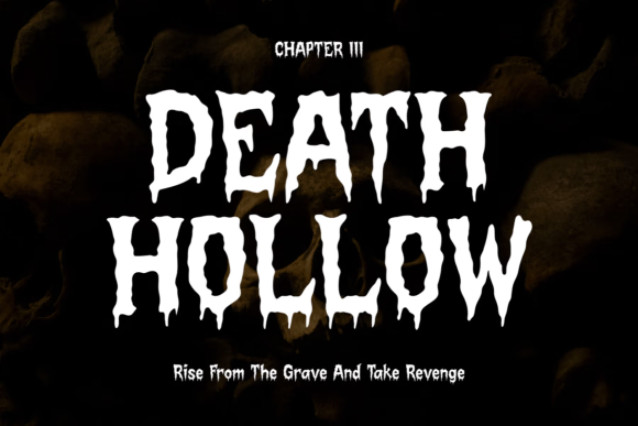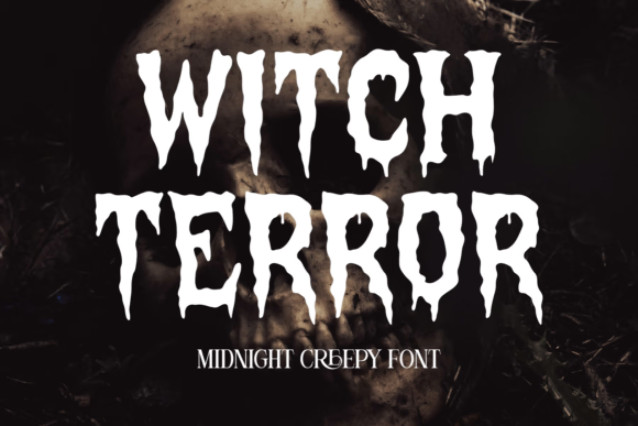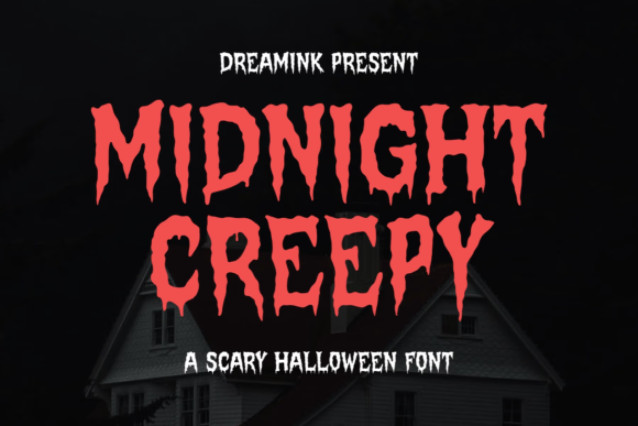
Midnight Creepy Font
Midnight Creepy is a terrifyingly bold Halloween font that drips with eerie style. With jagged, melting edges and a blood-like flow, each letter feels as if it has been pulled straight out of a midnight horror scene. Perfect for adding a chilling atmosphere to your designs, this font is made for projects that demand a truly haunting touch.
Whether you’re creating horror movie posters, haunted house flyers, spooky party invitations, or creepy merchandise, Midnight Creepy delivers an instant dose of fear and excitement. Its bold display style ensures your text won’t just be read—it will be felt.
With every curve and drip crafted to send shivers down the spine, Midnight Creepy is your ultimate typeface for setting a dark, mysterious, and sinister tone. Let your designs come alive with bone-chilling vibes and make this Halloween one they’ll never forget.